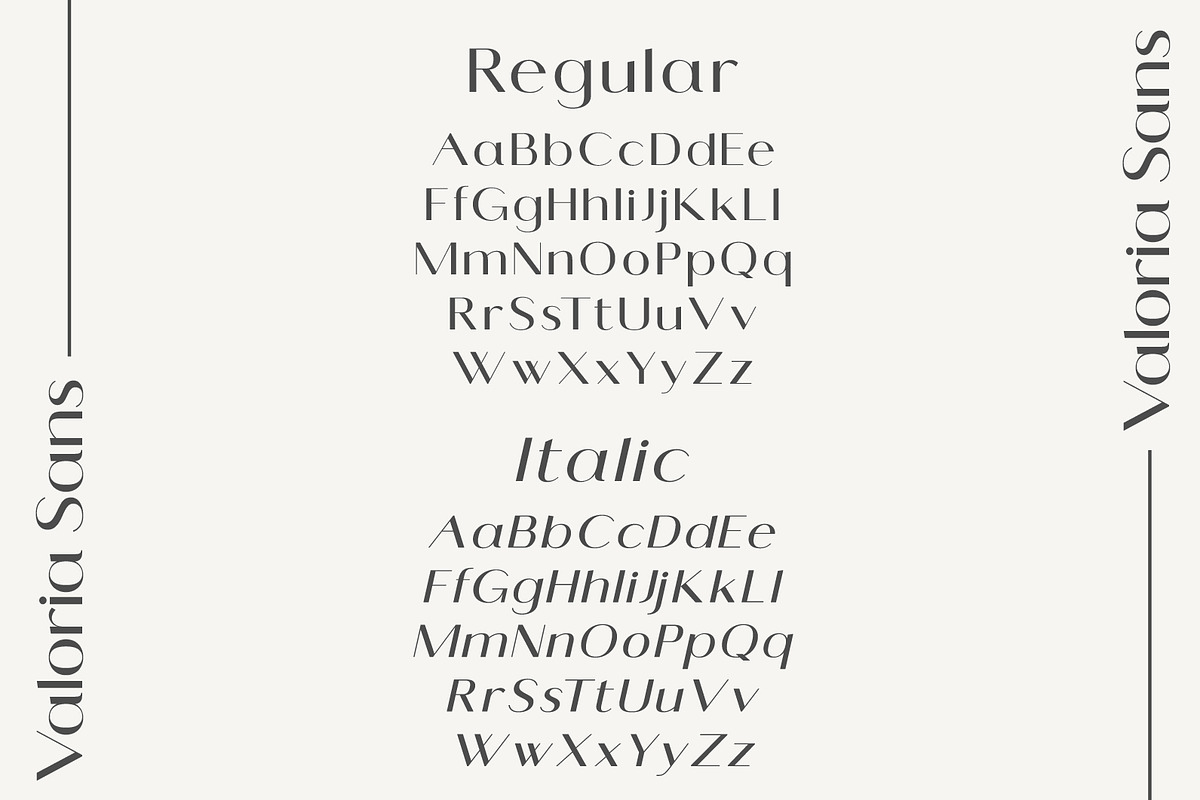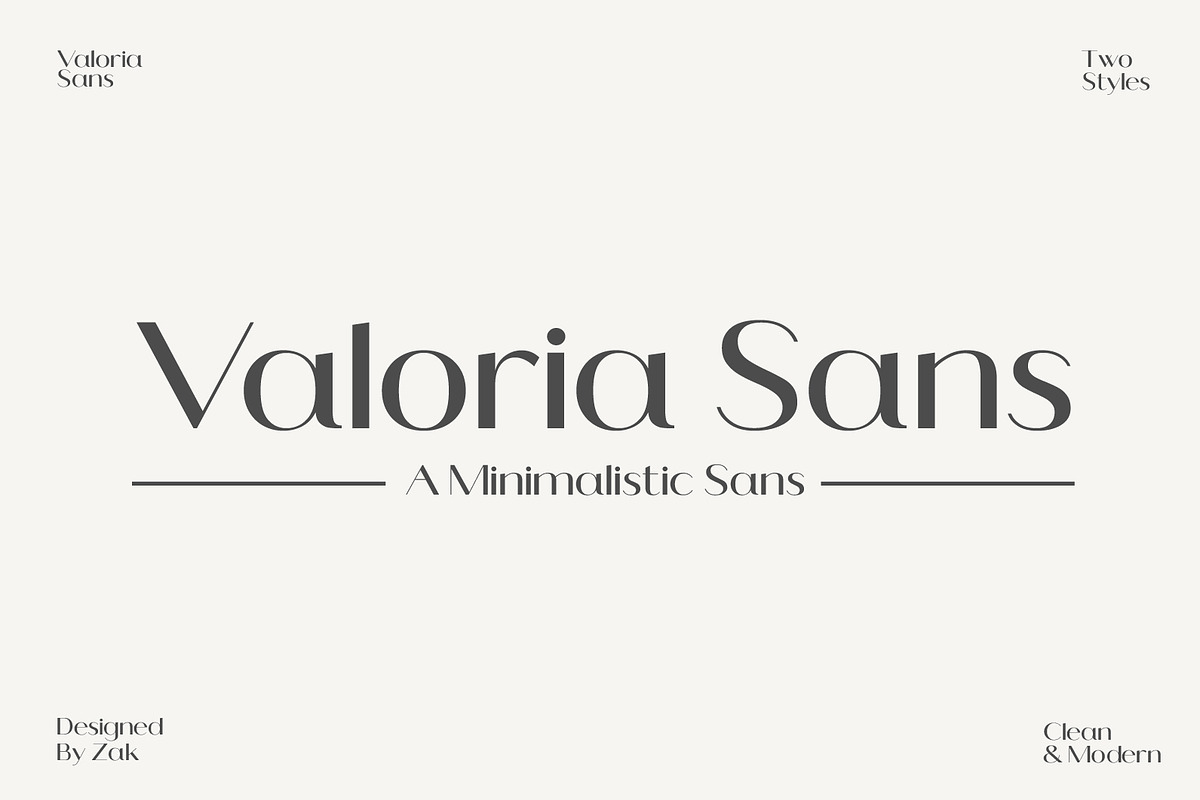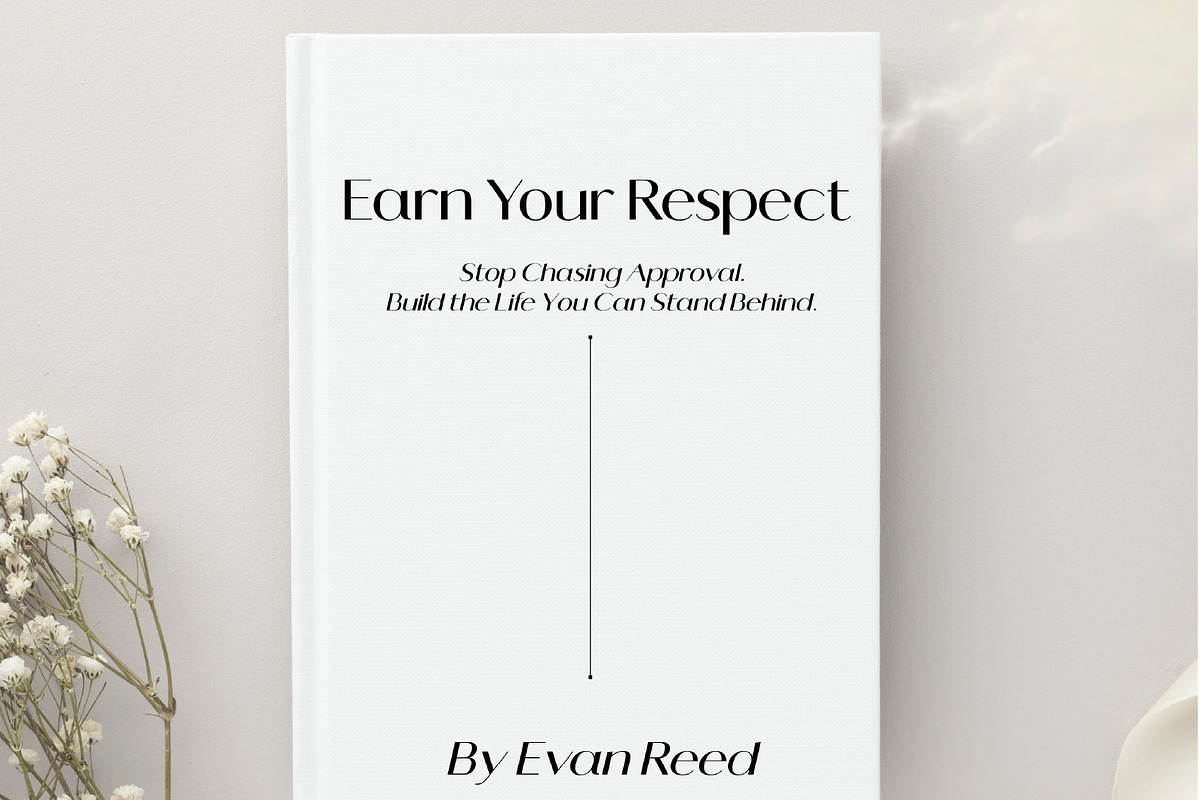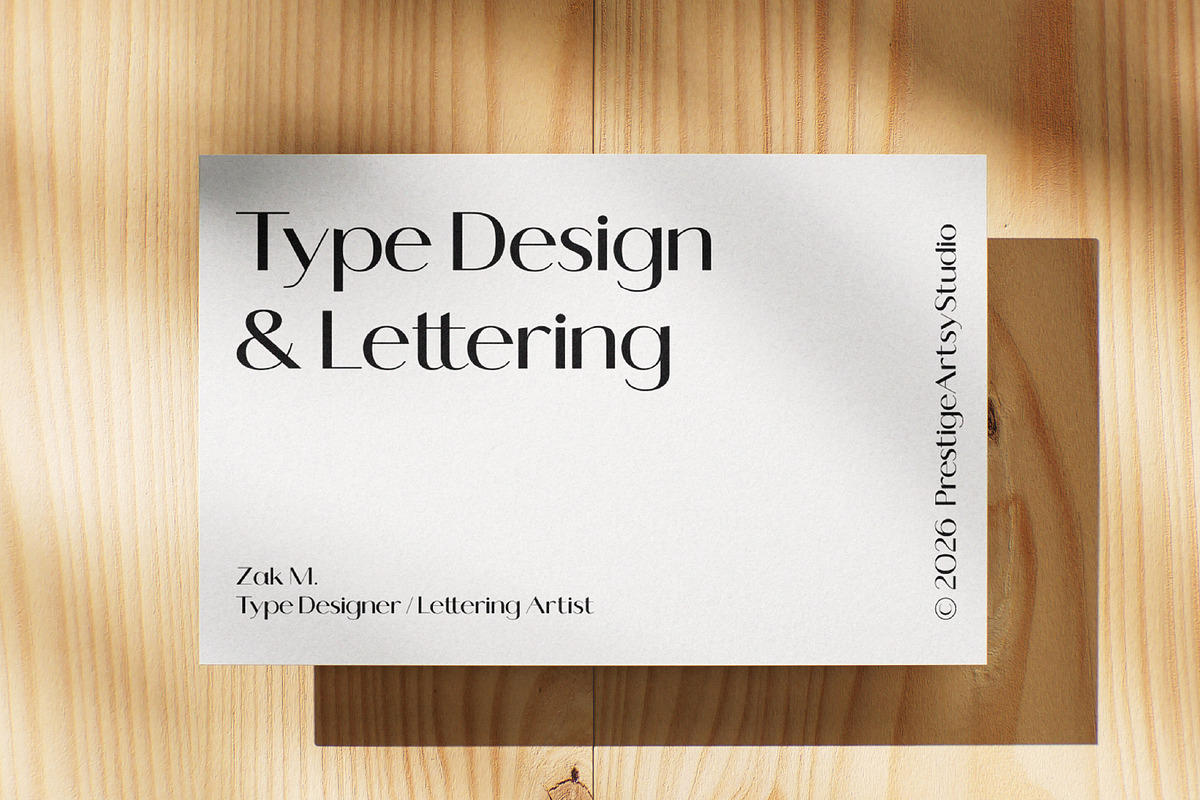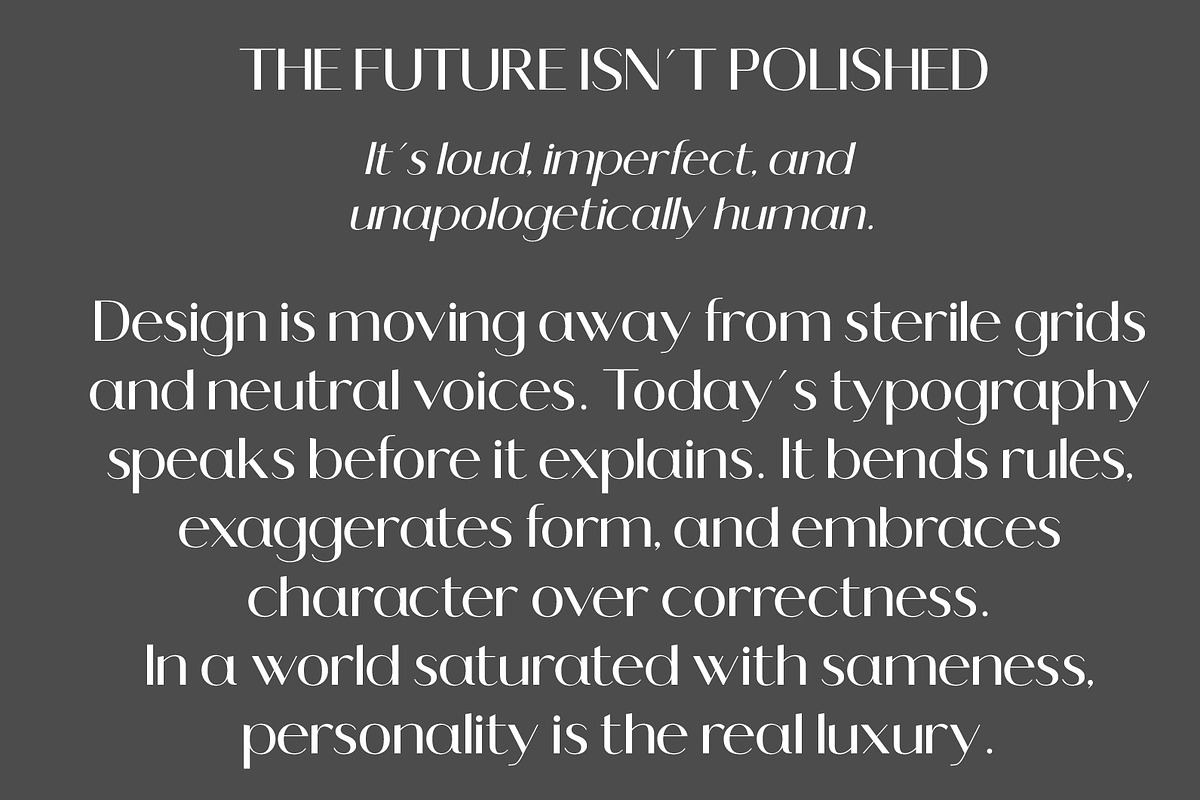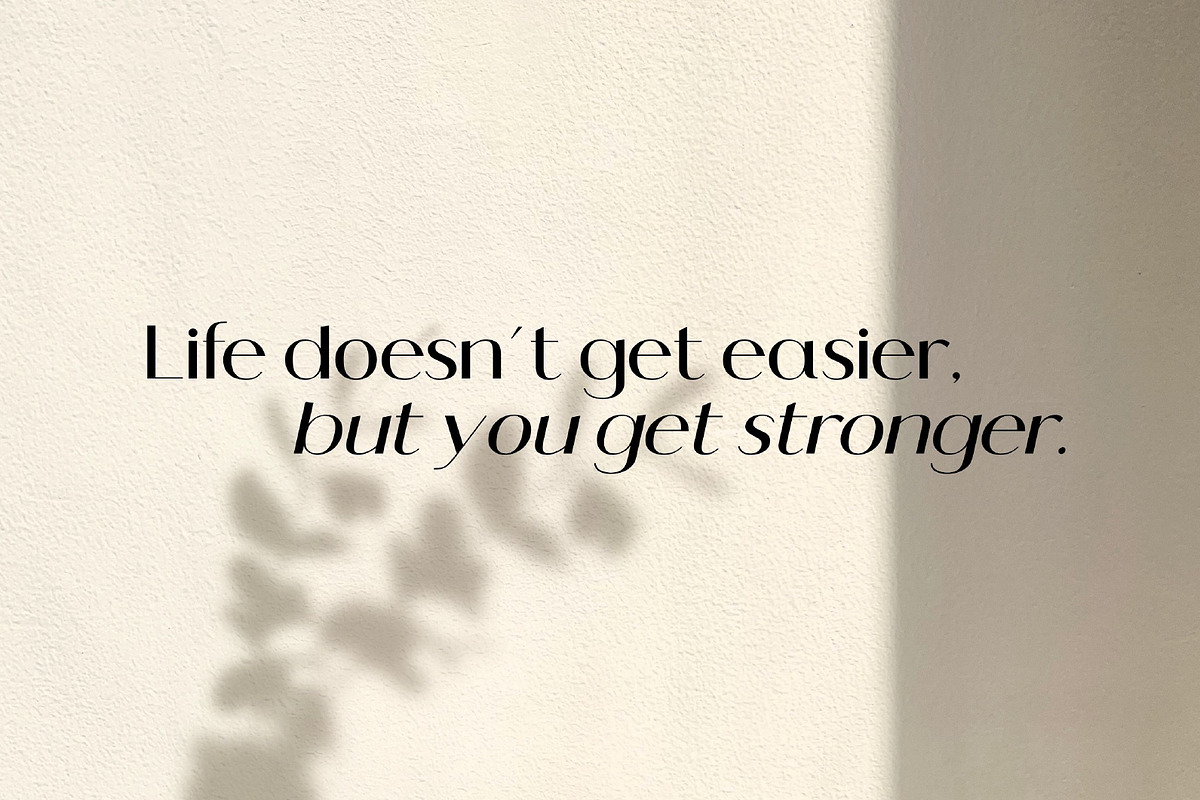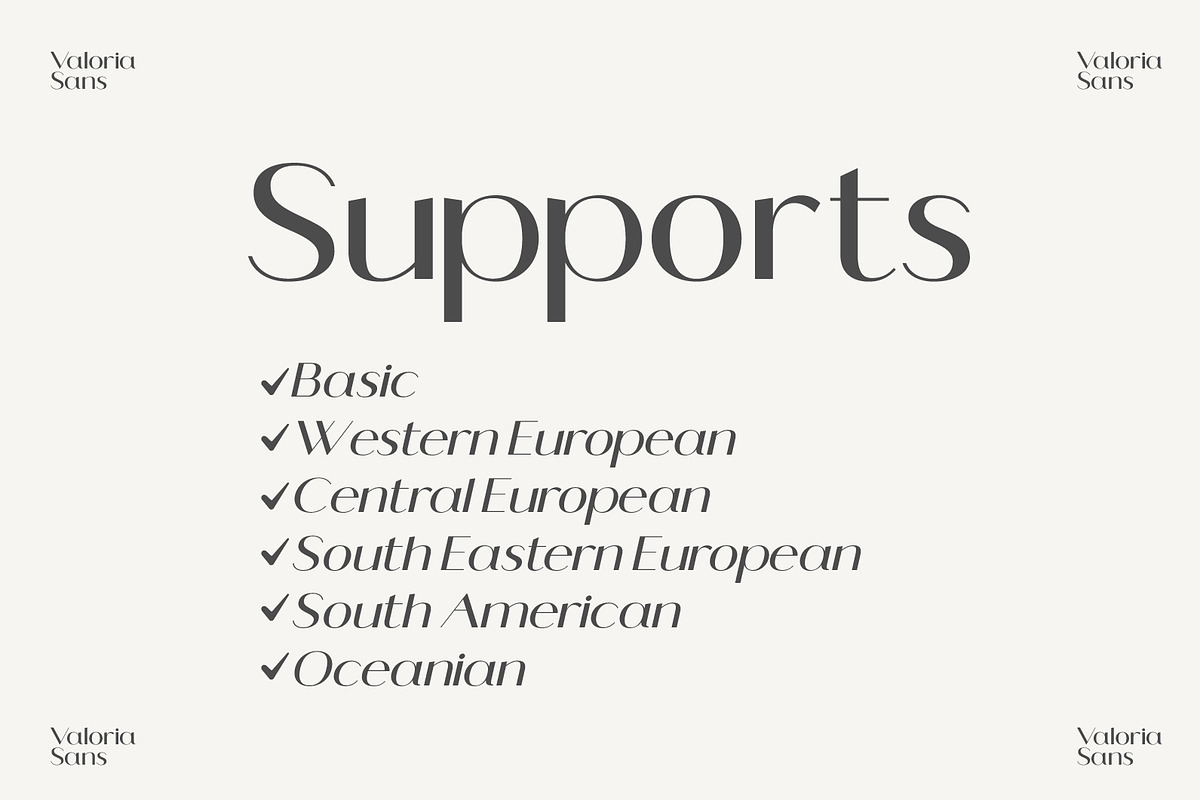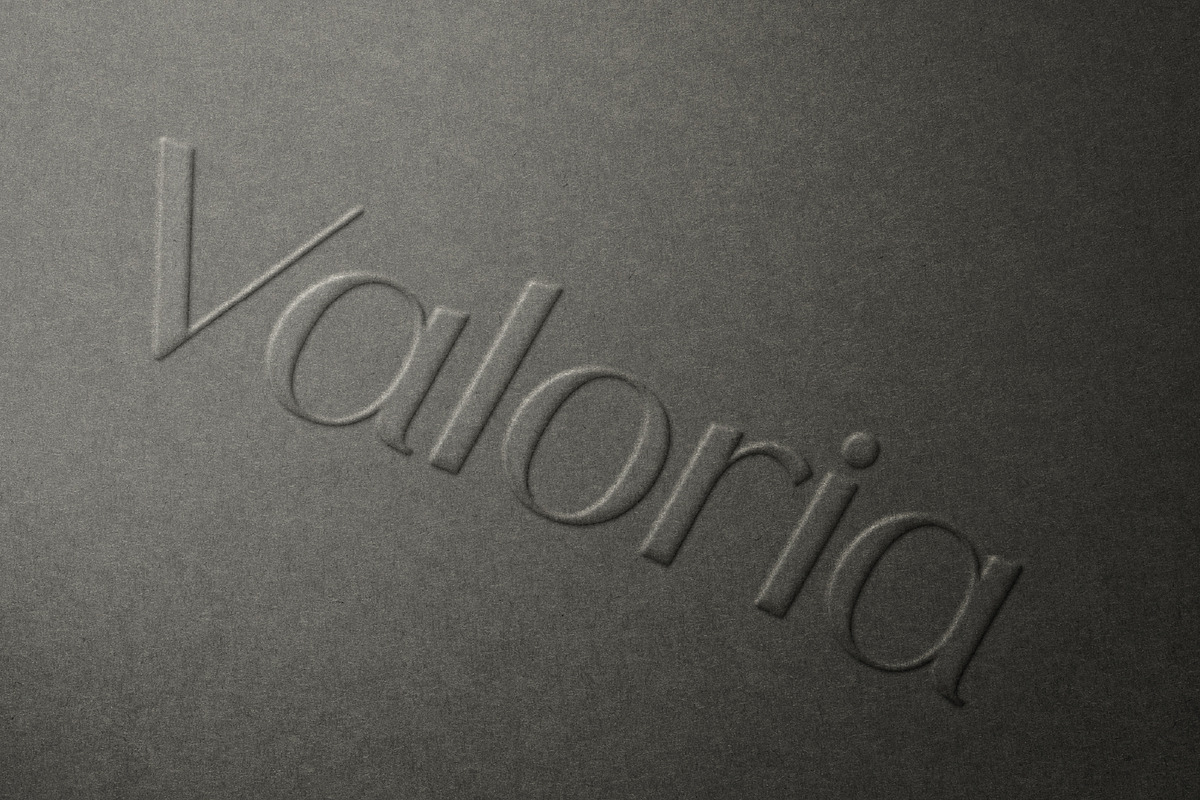
Valoria Sans
Valoria Sans is a refined modern sans-serif typeface designed for elegance, clarity, and versatility. Its sleek, minimalistic structure and carefully balanced proportions create a timeless aesthetic that feels both contemporary and sophisticated.
Designed to perform beautifully across branding, editorial layouts, web design, and digital interfaces, Valoria Sans offers a clean visual voice with subtle character. The family includes Regular and Italic styles, allowing for graceful emphasis, contrast, and typographic hierarchy while maintaining a cohesive and polished look.
🌍 LANGUAGE SUPPORT
Valoria Sans supports a wide range of Latin-based languages, including:
• Basic
• Western European
• Central European
• South Eastern European
• South American
• Oceanian
🎯 PERFECT FOR
• Branding
• Logos
• Editorial
• Fashion
• Web Design
• UI/UX
• Social Media
• Packaging
• Print & Digital Projects